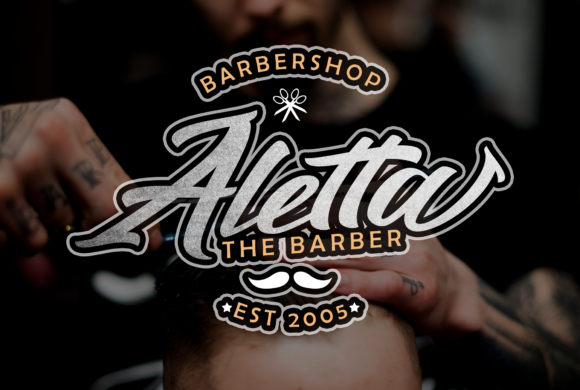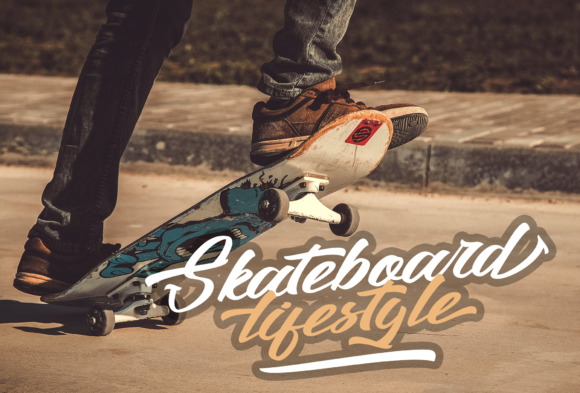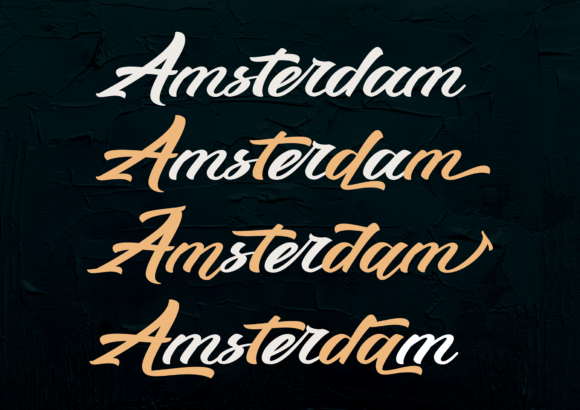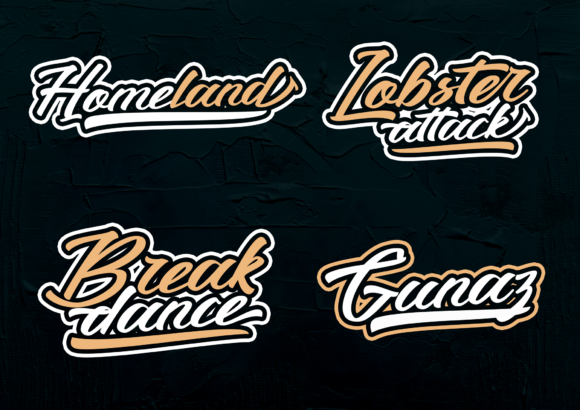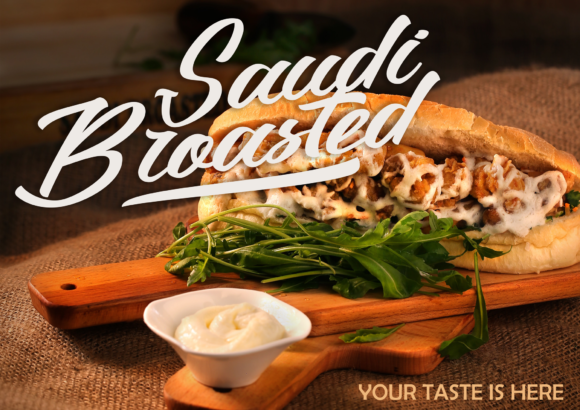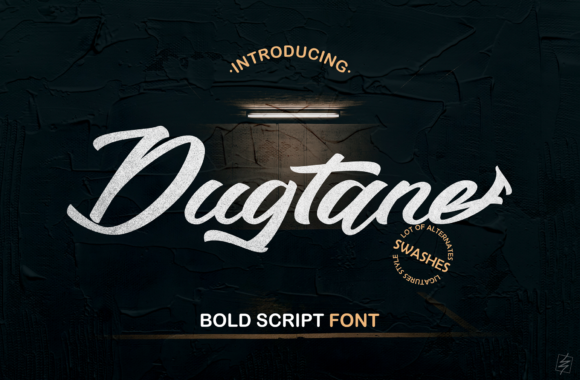
Dugtane Font: Elevate Your Designs with a Bold Handwritten Style
Are you looking for a font that can add a touch of personality and elegance to your designs? Look no further than Dugtane, a bold handwritten font with a natural feel that’s perfect for a wide range of creative projects. In this article, we’ll explore the features and benefits of Dugtane, and show you how it can elevate your designs to the highest level.
What is Dugtane Font?
Dugtane is a bold handwritten font that’s designed to make a statement. With its natural, effortless feel, it’s perfect for designers and crafters who want to add a touch of personality to their work. Whether you’re creating branding materials, headings, wedding designs, invitations, signatures, logos, labels, or anything else, Dugtane is the perfect choice.
Key Features of Dugtane Font
- Bold and eye-catching: Dugtane is a bold font that’s designed to grab attention. Its thick strokes and confident lines make it perfect for headlines, titles, and other design elements that need to stand out.
- Handwritten with a natural feel: Unlike other bold fonts, Dugtane has a natural, handwritten feel that’s warm and inviting. It’s perfect for designs that need a personal touch.
- Versatile: Dugtane is a versatile font that can be used for a wide range of design projects, from branding and advertising to wedding designs and craft projects.
- Elegant and sophisticated: Despite its bold nature, Dugtane is an elegant and sophisticated font that’s perfect for designs that need a touch of luxury.
Benefits of Using Dugtane Font
So why should you choose Dugtane for your designs? Here are just a few benefits of using this amazing font:
- Adds personality to your designs: Dugtane is a font that’s full of personality, and it’s perfect for designers who want to add a touch of warmth and humanity to their work.
- Elevates your designs: With its bold, confident lines, Dugtane is a font that can elevate even the most basic designs to the highest level.
- Perfect for creative projects: Whether you’re working on a branding project, a wedding design, or a craft project, Dugtane is the perfect choice.
- Easy to read: Despite its bold nature, Dugtane is an easy-to-read font that’s perfect for designs that need to communicate a message.
How to Use Dugtane Font
So how can you use Dugtane in your designs? Here are a few ideas to get you started:
- Branding: Use Dugtane as a headline font to add a touch of personality to your branding materials.
- Wedding designs: Dugtane is perfect for wedding designs, including invitations, programs, and other stationery.
- Headings: Use Dugtane as a heading font to add a touch of elegance and sophistication to your designs.
- Logos: Dugtane is a great font for logos, particularly those that need to make a bold statement.
| Font Name | Dugtane Font |
| Author | wallby.hand |
In conclusion, Dugtane is a bold handwritten font with a natural feel that’s perfect for a wide range of design projects. With its confident lines, elegant style, and versatile nature, it’s a font that can elevate even the most basic designs to the highest level. Whether you’re a designer, crafter, or DIY enthusiast, Dugtane is a font that’s sure to become a favorite.